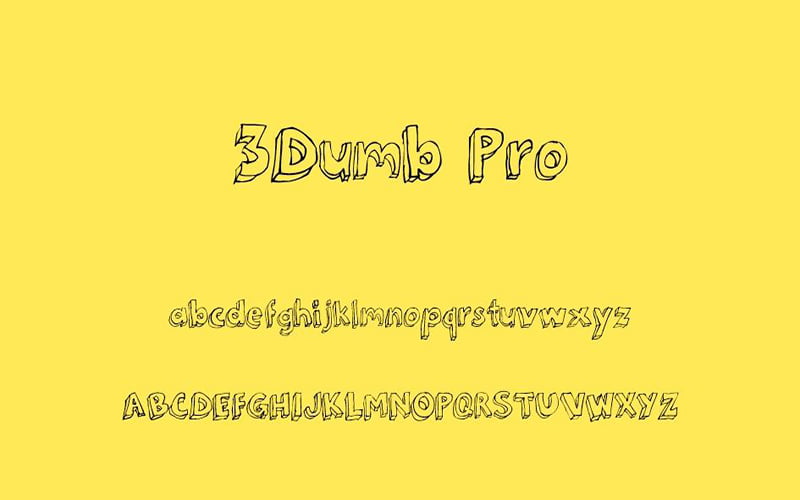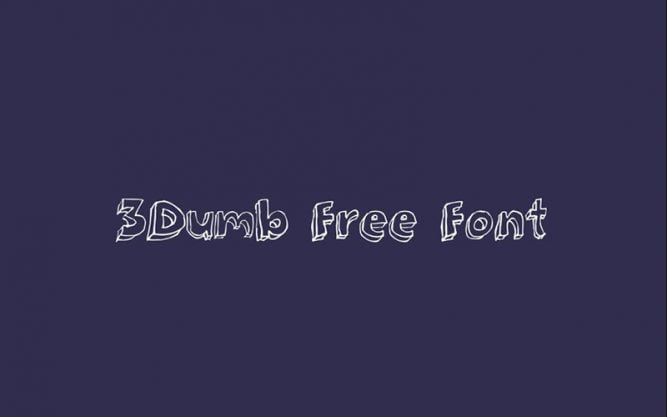
Handwritten Logo Typeface
3dumb Font is a novelty and handwritten font family. The amazing font is designed by the way of Tension-Type. The dynamic soft curls of the characters add a touch of sensitivity and personality.
The free font contained only one unique style including regular. Due to the nature of its 3D design, its shady and 3D effects add words to the characters and provide a great look for the viewer.
This novelty font is suitable for different educational websites, this font is a great option for logos, branding names logos, and fashion design names, and use it in different design software, from Illustrator to Photoshop and more.
The strong dynamic structure of the character ensures it is perfect for a different design project. Its 3D figure, which is square at the end, makes it a soft design and pleasing to the eye and is available on anchor fonts.
3dumb Font
The soft glow that accompanies each letter adds an elegant tone to this dynamic structure. This effect builds this font ideal for text.  Even the distance between each letter and the text filled in it enhances its ability.
The simplicity of the theory makes it ideal for hints and headings in an outdoor and rural context. It gives a good appearance to your content. This elegant font is available in uppercase, lowercase, numbers, and symbols.